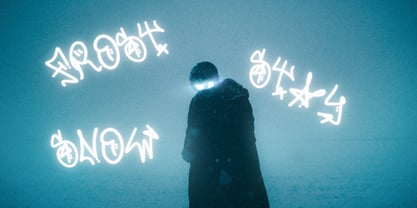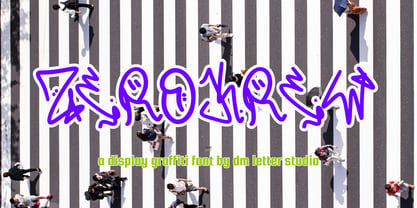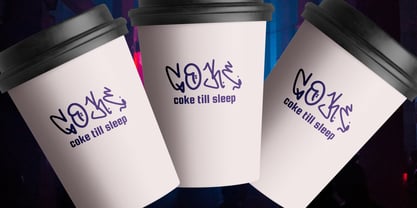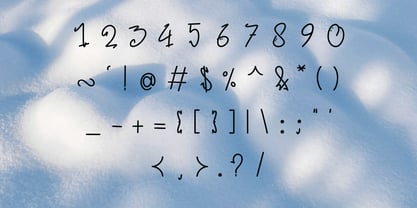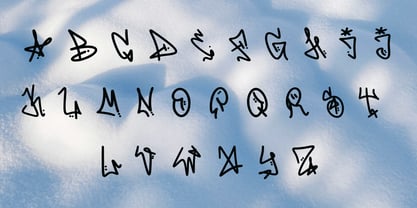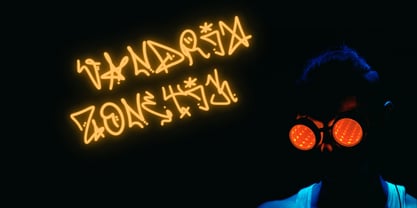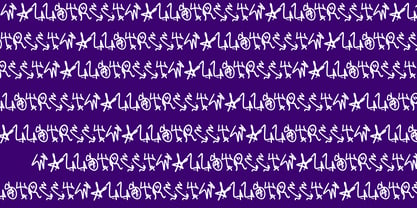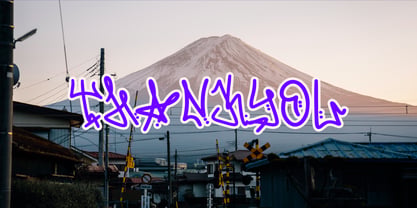
Zerokrew
by DM Studio
The Zerokrew Font Family was designed by Dimas Prasetyo and published by DM Studio. Zerokrew contains 1 styles. More about this family
Meet Zerokrew, the Urban Graffiti Display Font Zerokrew is a bold graffiti display font built for strong street-style visuals. The letterforms feel raw, rebellious, and energetic, like a fresh tag sprayed across a city wall. Each character carries a powerful urban attitude that makes designs look loud and expressive. Use Zerokrew for streetwear branding, music posters, gaming graphics, YouTube thumbnails, hip hop designs, sticker art, and bold merchandise. As a result, your typography feels gritty, modern, and instantly attention-grabbing.   Why Zerokrew sells First, Zerokrew installs quickly and works smoothly in Canva, Photoshop, and Illustrator. Next, the strong graffiti structure keeps words readable while still delivering bold street character. Then your layouts come together faster because the font already carries an urban personality without heavy styling. Moreover, graffiti and street-inspired design continue trending across music, gaming, and youth culture niches. Therefore, Zerokrew fits perfectly into edgy display font collections.   Fast layouts with the Zerokrew Font Start with short, punchy words to maximize visual impact. After that, add spray textures, paint splashes, or bold outlines to enhance the graffiti look. Because the shapes are strong and expressive, keep the background simple to maintain readability. In addition, pair it with a clean sans serif for supporting text or event details. Finally, try palettes like black and neon green, red and white, purple and cyan, or yellow and charcoal for strong urban contrast.   Creative uses and quick wins Streetwear logos and apparel graphics Music posters and hip hop event flyers Gaming thumbnails and esports branding Sticker designs and urban social media posts What you get Uppercase and lowercase letters Numbers and basic punctuation Design tips for Zerokrew Use Zerokrew for headlines, logos, and strong display text rather than long paragraphs. Also, experiment with spray textures or grunge overlays to enhance the street feel. For print, use high-contrast colors to keep the letter shapes clear. For digital designs, scale the font slightly larger so the bold edges stay crisp on smaller screens. Finally, combine it with paint splatters, halftone dots, or simple geometric shapes for a stronger urban style.
Designers: Dimas Prasetyo
Current Foundry: DM Studio
Zerokrew